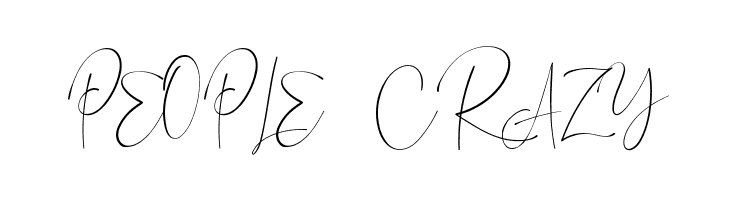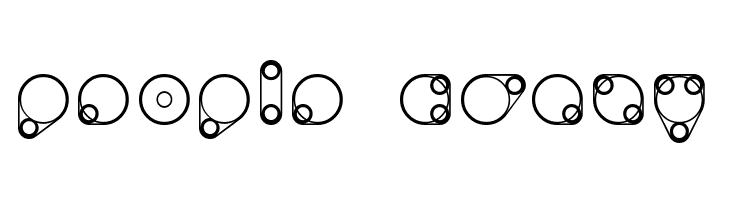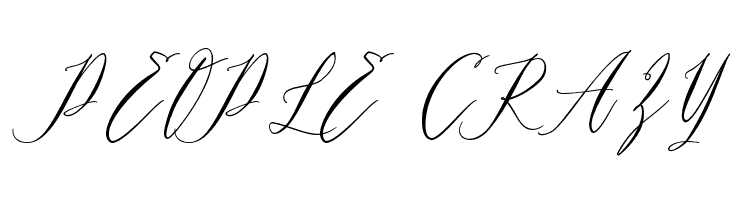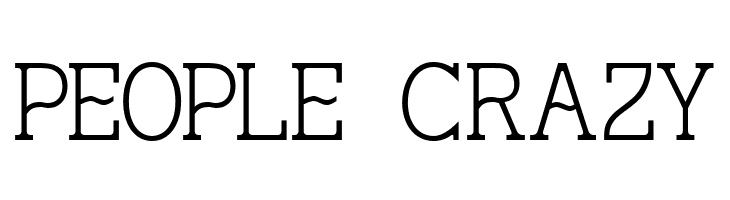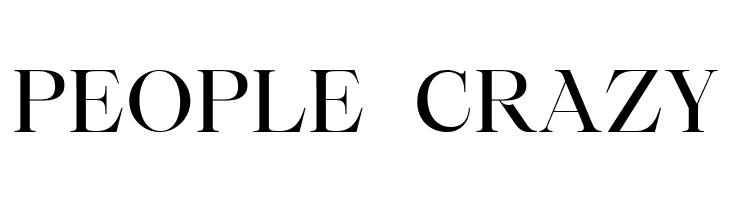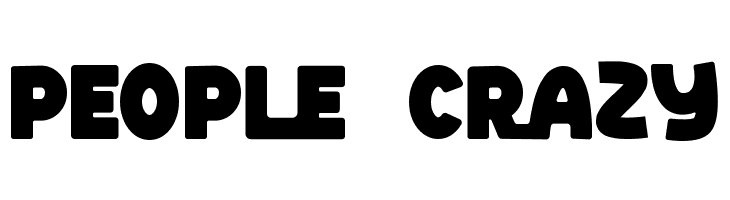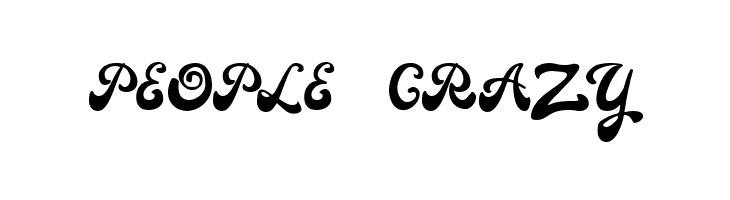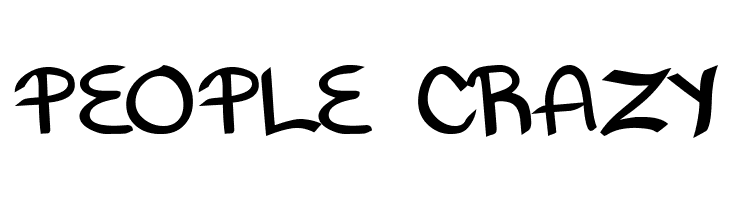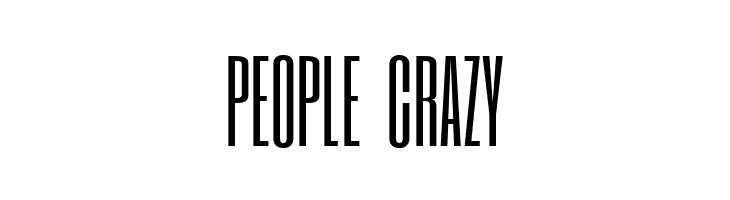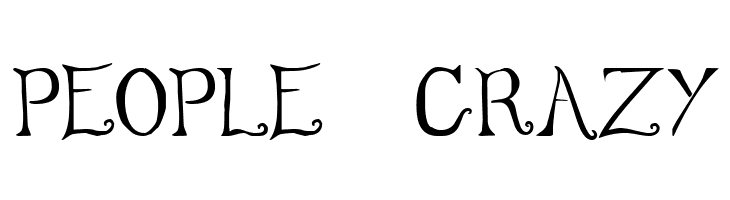
Six Caps Font
A tall, condensed font with uniform strokes, ideal for bold headlines.
Chrysanthi Unicode Regular Font
An elegant serif typeface with refined strokes and classic proportions.
Unique Font
A modern, sleek font with dynamic slants and medium contrast.
Torrance Font
A clean, modern geometric font with consistent stroke width.
Maharlika Regular Font
A classic serif font with elegant strokes and refined details.
AGA Sindibad V.2 3F/['/ Font
A sleek, modern font with geometric shapes and consistent stroke width.
AGA Sindibad V.2 3F/['/ Bold Font
A sleek, modern font with clean, geometric lines and elegant proportions.
Hoa Sen Typeface Font
A classic serif typeface with elegant strokes and moderate contrast.
Valencia Font
A classic serif font with elegant, bold characters and a modern twist.
Preside Bold PERSONAL USE ONLY Font
A bold, elegant script font with flowing, decorative strokes.
Preside Light PERSONAL USE ONLY Font
An elegant script font with flowing, cursive style and graceful swashes.
Road Sunshine Font
A whimsical, elegant cursive font with flowing lines and sophisticated curves.
Bombulate Regular Font
A bold, playful script font with whimsical curves and ornate details.
Boxer Punch Font
A bold, rounded font with a playful and robust style.
Ghosting Font
An elegant, flowing script font with a handwritten appearance.
Los Altos Font
A casual, handwritten font with smooth, flowing lines and a relaxed style.
Sanfrisco Font
A bold, eclectic font with a mix of modern and vintage elements, featuring unique character designs.
iec5000 Font
Technical symbol font for diagrams and schematics.
Swaziland-Regular Font
An elegant and sophisticated script font with flowing cursive strokes.
Animoto Bubbly Font